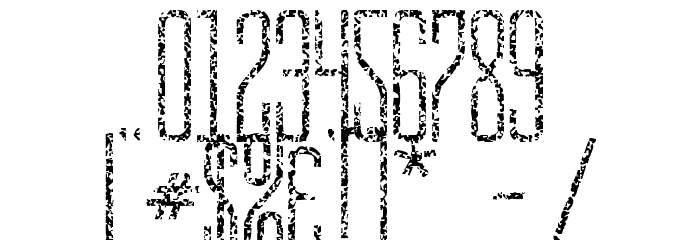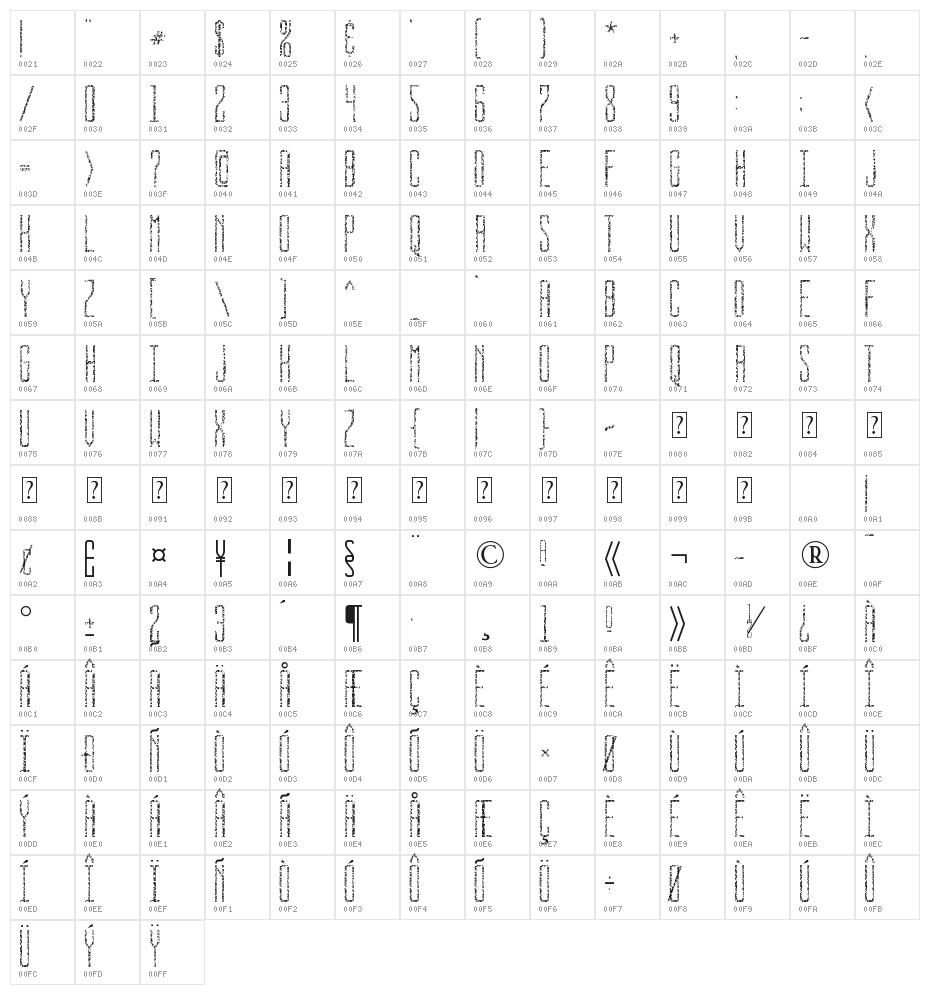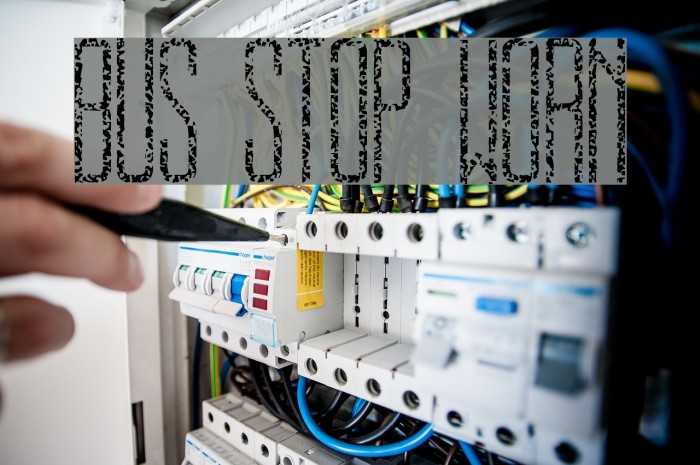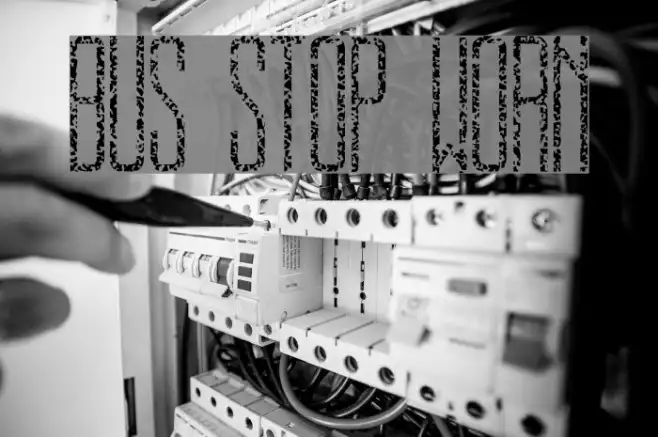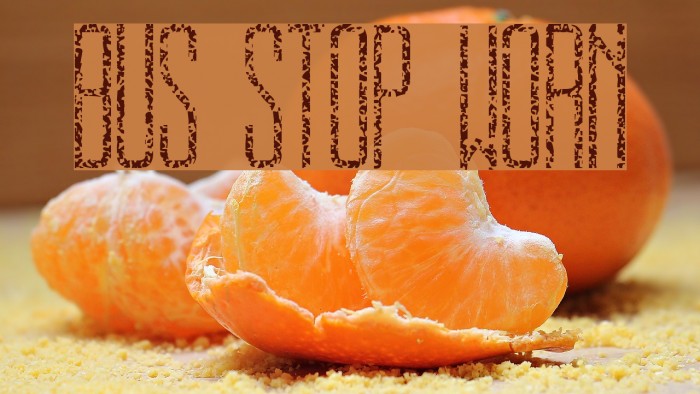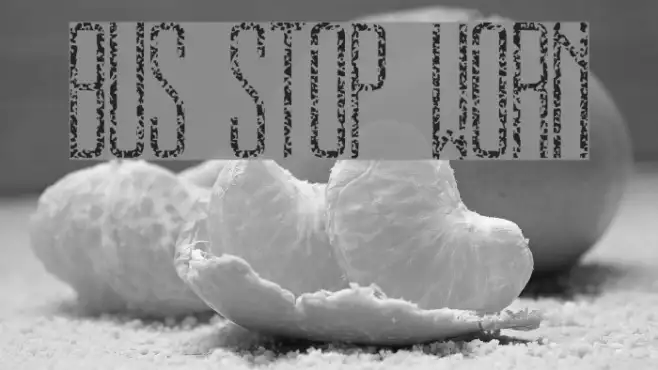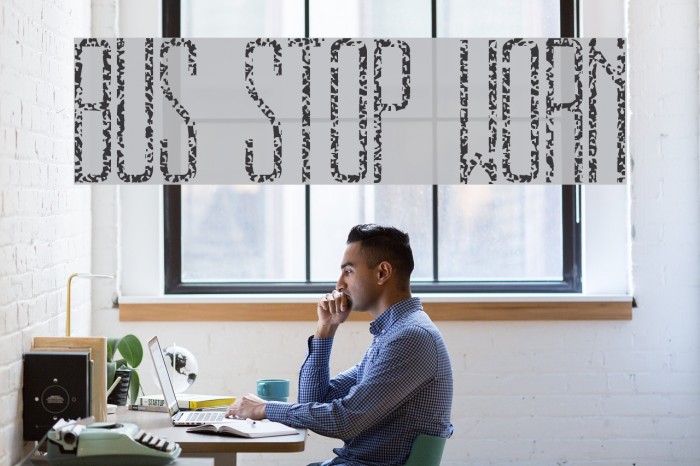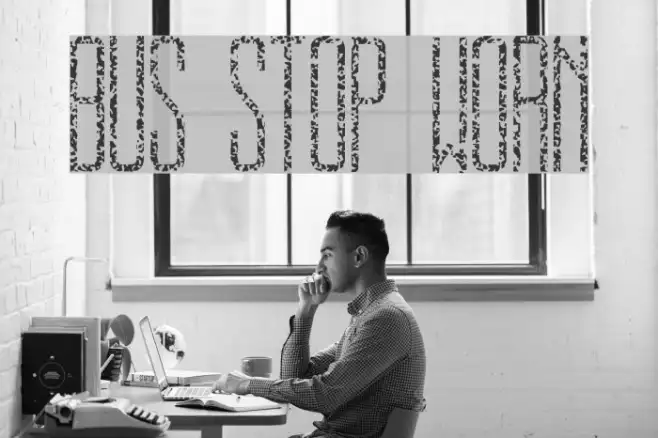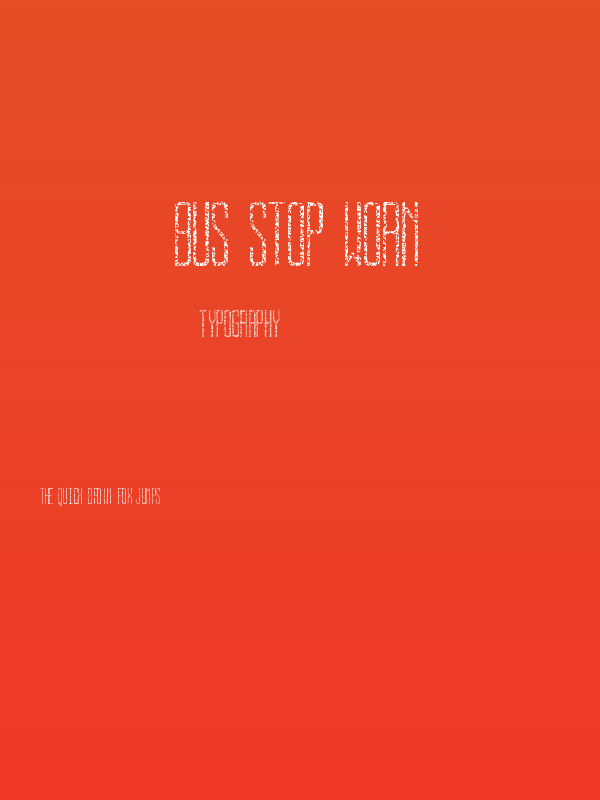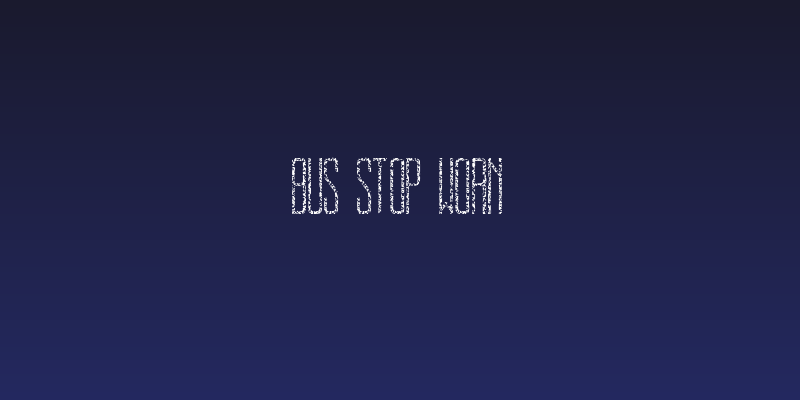
BUS STOP WORN Font
BUS STOP WORN Description
This font features a distressed, worn-out appearance that mimics the look of weathered signage. The characters are tall and narrow, with a consistent vertical alignment that gives a structured feel despite the rough texture. The texture adds a vintage, gritty aesthetic, reminiscent of old bus stop signs or urban street art. Each letter and number is distinct, with a bold presence that stands out even with the worn effect. The special characters maintain the same distressed style, ensuring a cohesive look across all glyphs.
Overall StyleVintage
Proposed ProjectsIdeal for projects needing a vintage or urban aesthetic, such as posters, album covers, or branding for retro-themed events.